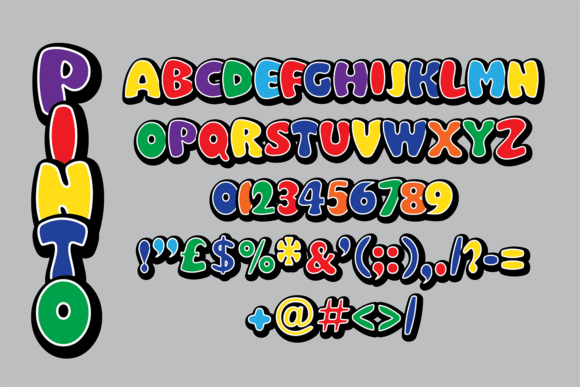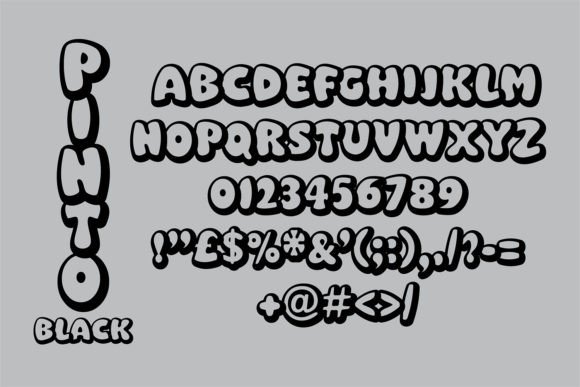
Introduction to Pinto Font
Pinto is a cute and colorful display font.
It embodies playfulness and authenticity and is the perfect choice for any children activity or school project Add this chunky lettered font to your designs and notice how it makes them come alive.
Key Features of Pinto Font
Why Choose Pinto Font?